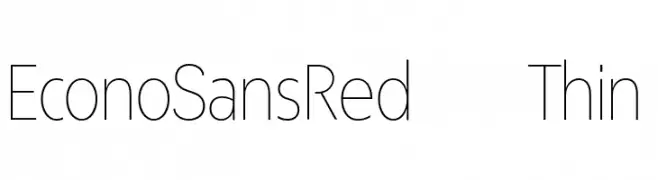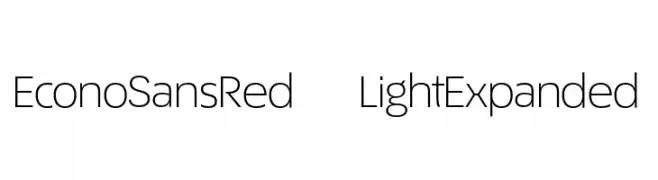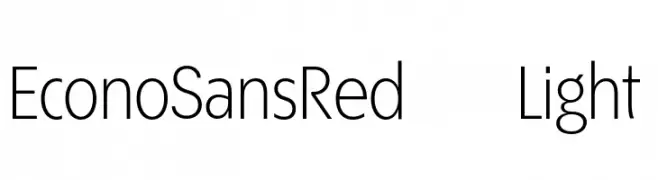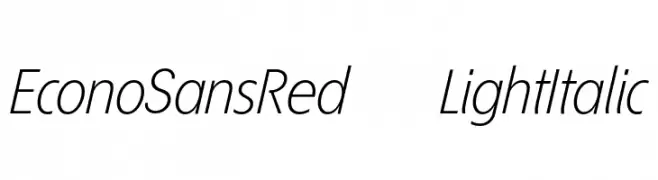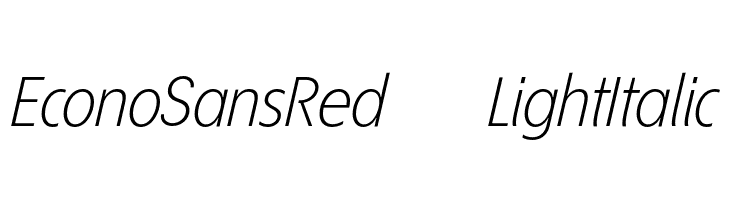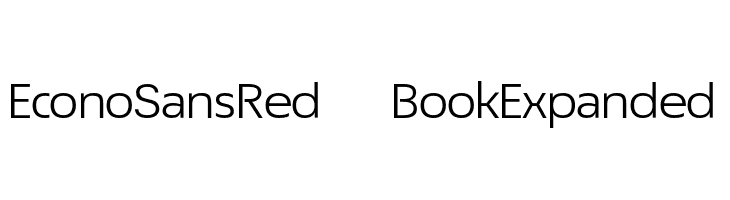
A modern, thin, expanded sans-serif font with a clean and geometric style.
A modern, thin, and italicized font with an expanded style and clean lines.
A modern, thin sans-serif font with clean lines and a minimalist design.
A sleek, thin, italic sans-serif font with a modern and elegant style.
A modern, light, and expanded sans-serif font with a clean and geometric design.
A modern, italicized sans-serif font with expanded width and low contrast.
A modern, geometric sans-serif font with uniform stroke widths.
A modern, light, italic sans-serif font with sleek lines and balanced spacing.
A modern, clean sans-serif font with balanced spacing and uniform strokes.
A modern, italicized sans-serif font with expanded width and consistent stroke thickness.